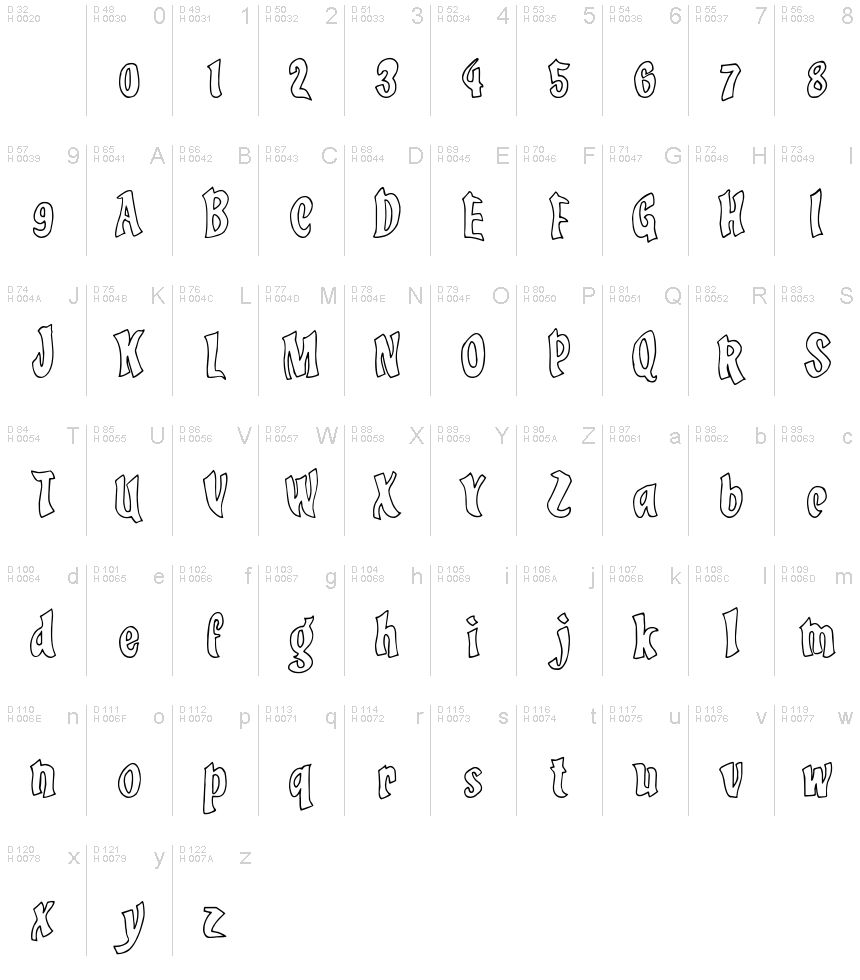
LuckyTricks
Lucky Tricks is a captivating display font crafted by the talented designer Max Infeld of Xerographer Fonts. This condensed, outlined font exudes a playful and whimsical charm, with its unique letterforms inviting the eye to linger and explore. The bold, expressive strokes create a sense of movement and energy, while the subtle variations in thickness and shape add depth and character to the design.
This font's versatility shines through, making it a compelling choice for a variety of projects, from vibrant event posters and dynamic logos to eye-catching packaging and editorial layouts. Its condensed nature and bold presence ensure it will command attention, whether used as a standalone headline or paired with complementary typefaces to create striking visual hierarchies.